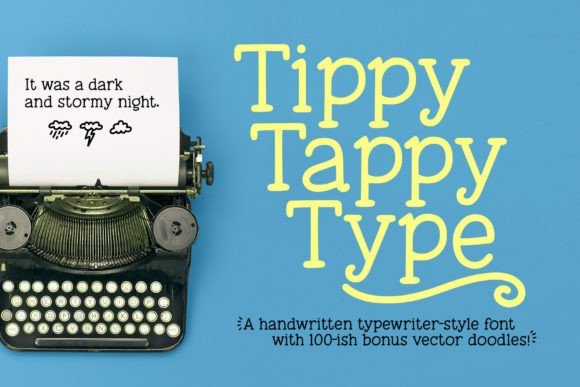
Introducing Tippy Tappy Type Font, the ultimate font for monogram Cricut enthusiasts! Created by GeekMissy, this slab serif font is not only visually appealing but also packed with features that will elevate your designs to new heights.
Are you tired of the same old fonts that lack personality? Look no further! Tippy Tappy Type Font adds a touch of nostalgia with its typewriter-inspired design. Imagine capturing the essence of vintage typewriters and infusing it into your modern creations. With Tippy Tappy Type Font, you can do just that.
But this font doesn't stop at its charming appearance. It offers a plethora of possibilities to make your designs truly unique. GeekMissy has gone above and beyond by including a collection of nearly 100 bonus items. From doodles and shapes to squiggles and swirls, you'll find everything you need to add that extra flair to your projects. And let's not forget the catchwords of "and" and "the," which will effortlessly enhance your typography.
But that's not all. Tippy Tappy Type Font goes the extra mile by offering extensive language support. With over 300 extended Latin characters, you can confidently craft designs for both Western and Eastern European languages. The inclusion of alternate oldstyle figures adds even more variety to your typographic repertoire.
So why settle for ordinary fonts when you can have the extraordinary? Tippy Tappy Type Font is your ticket to captivating designs that leave a lasting impression. Whether you're designing personalized monograms, crafting eye-catching logos, or adding a touch of elegance to your invitations, this font is your secret weapon.